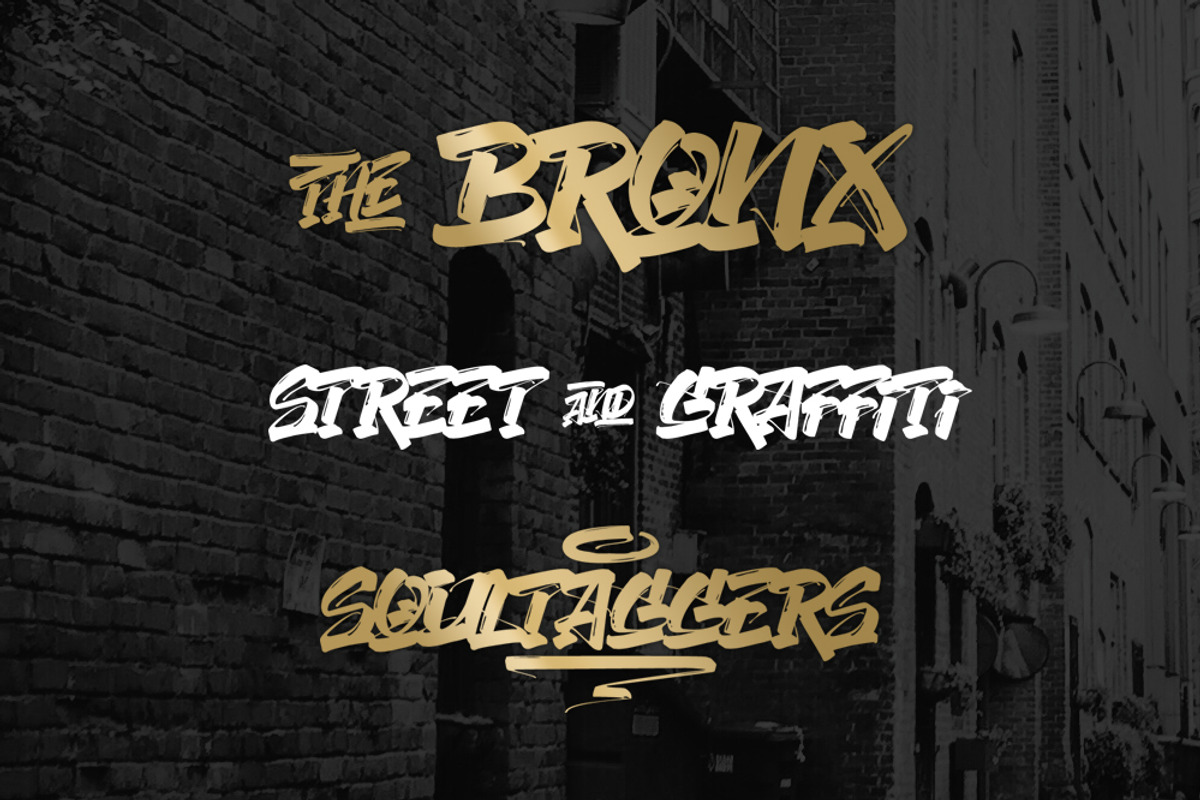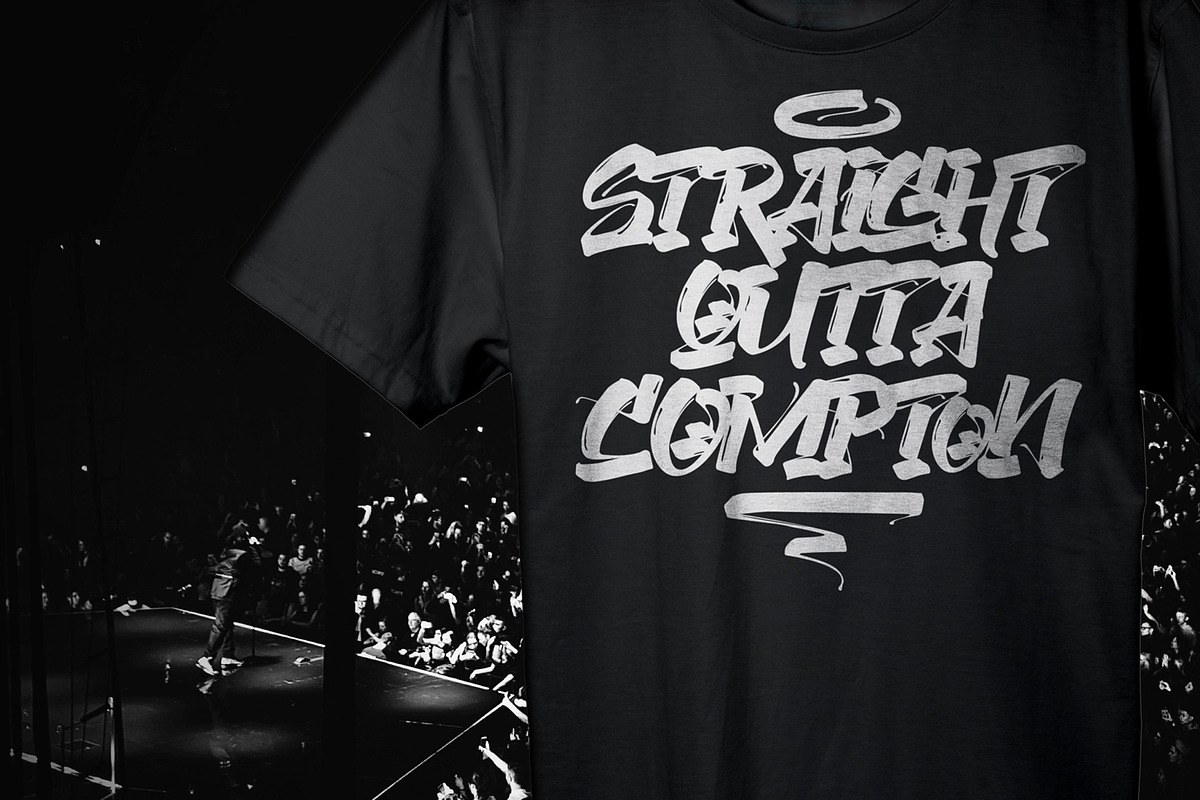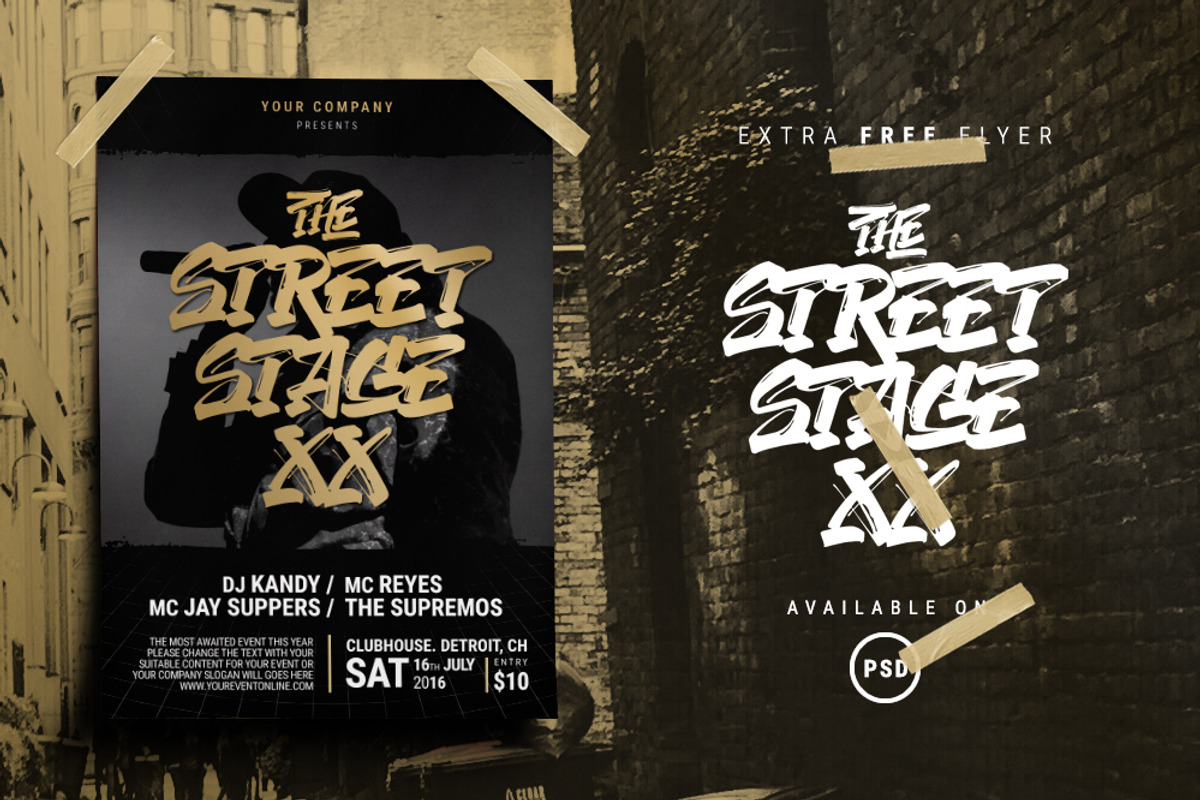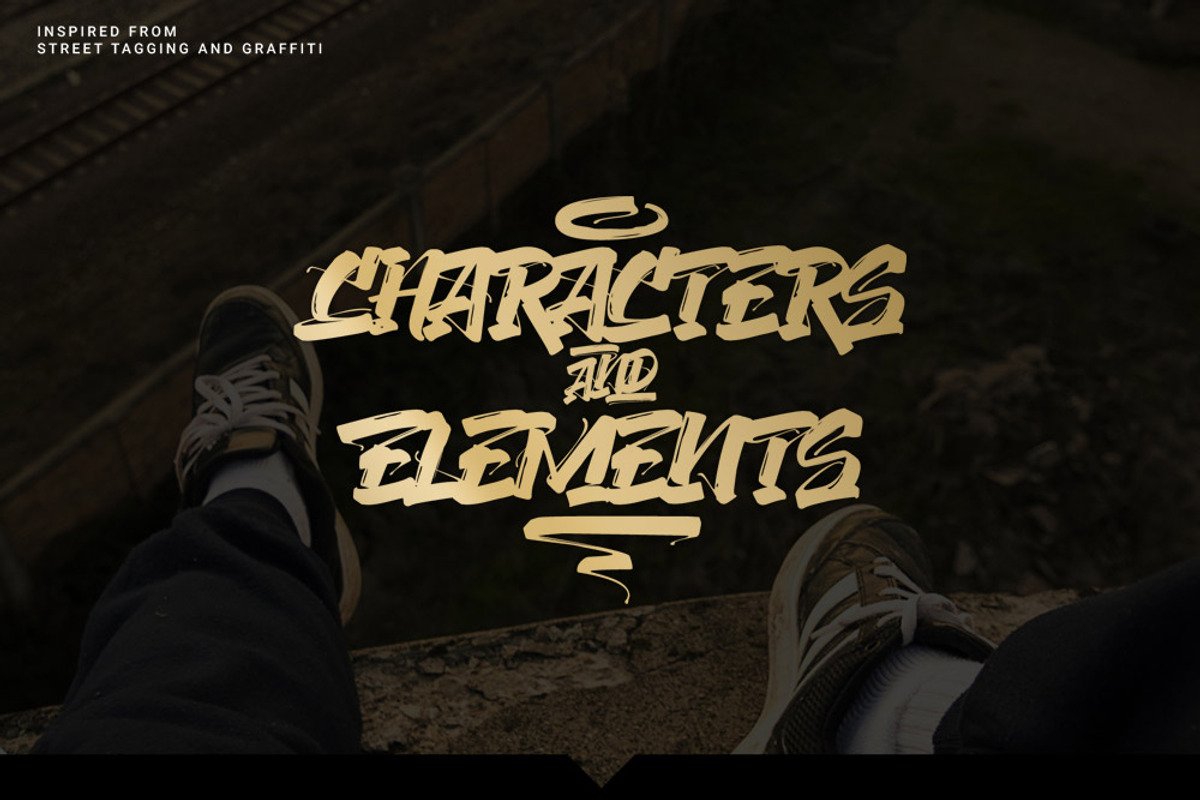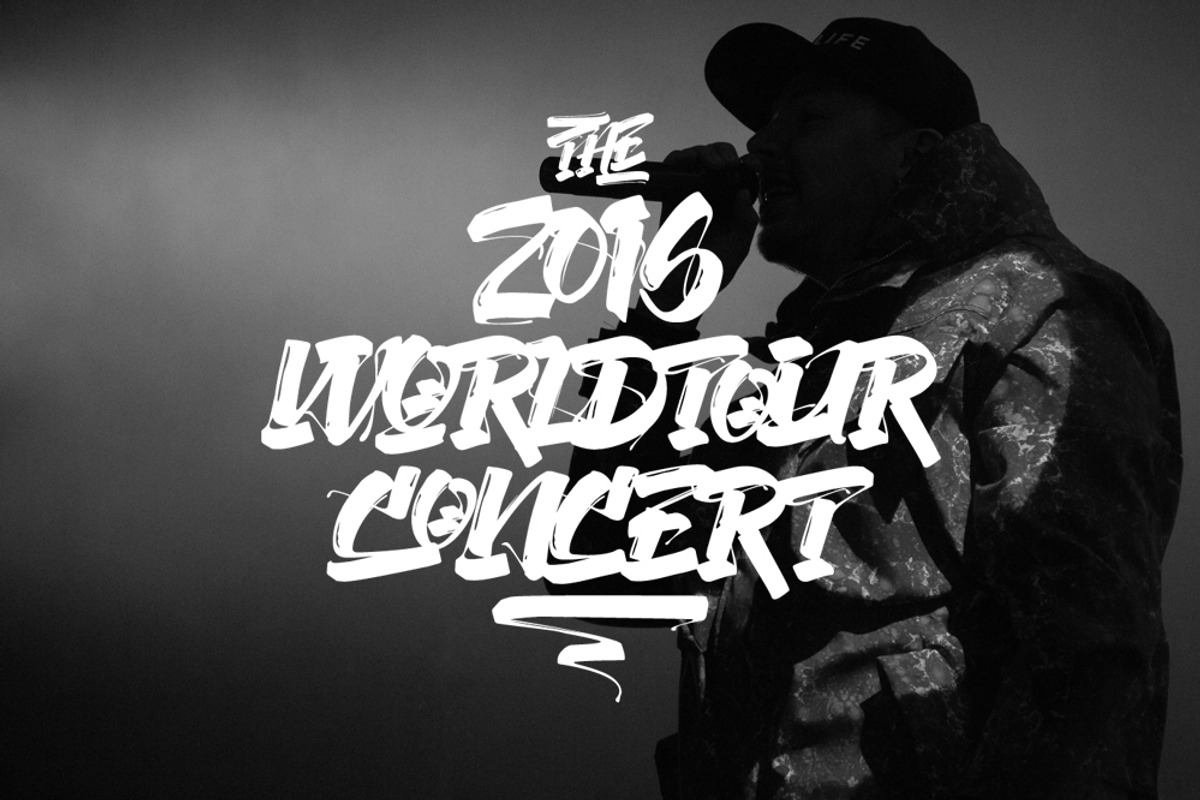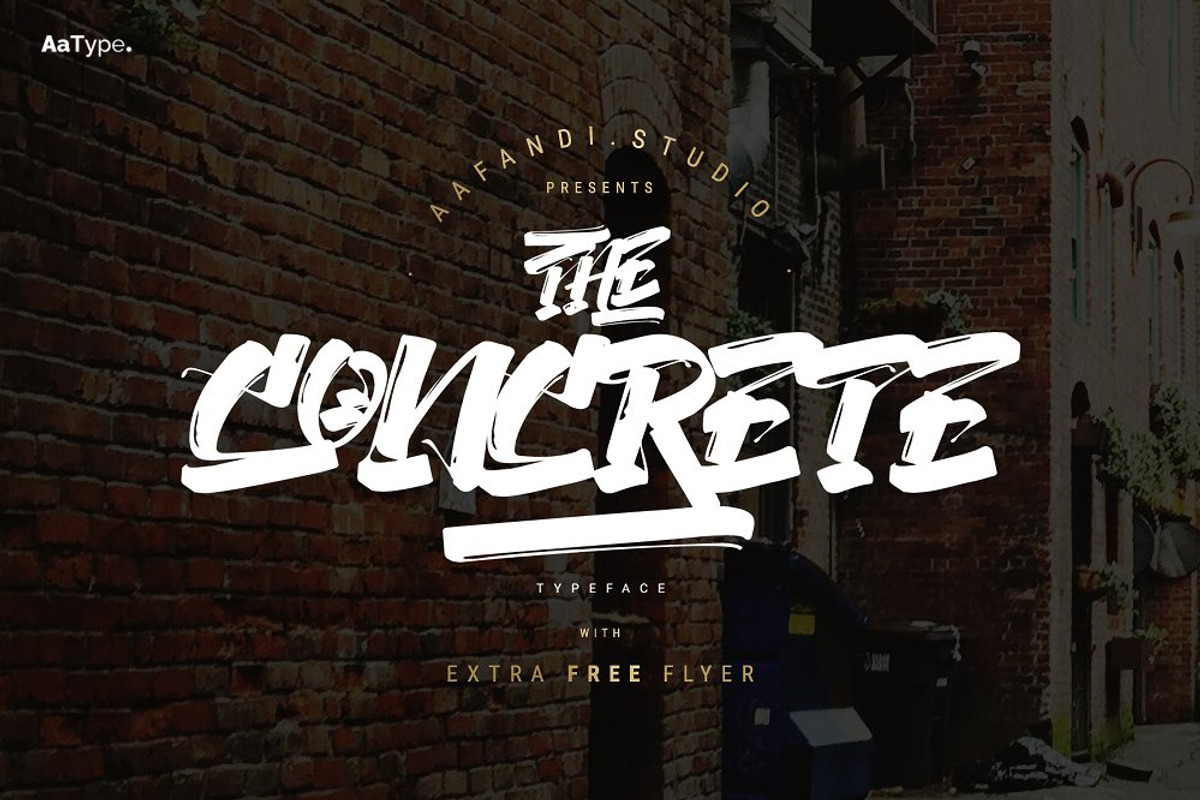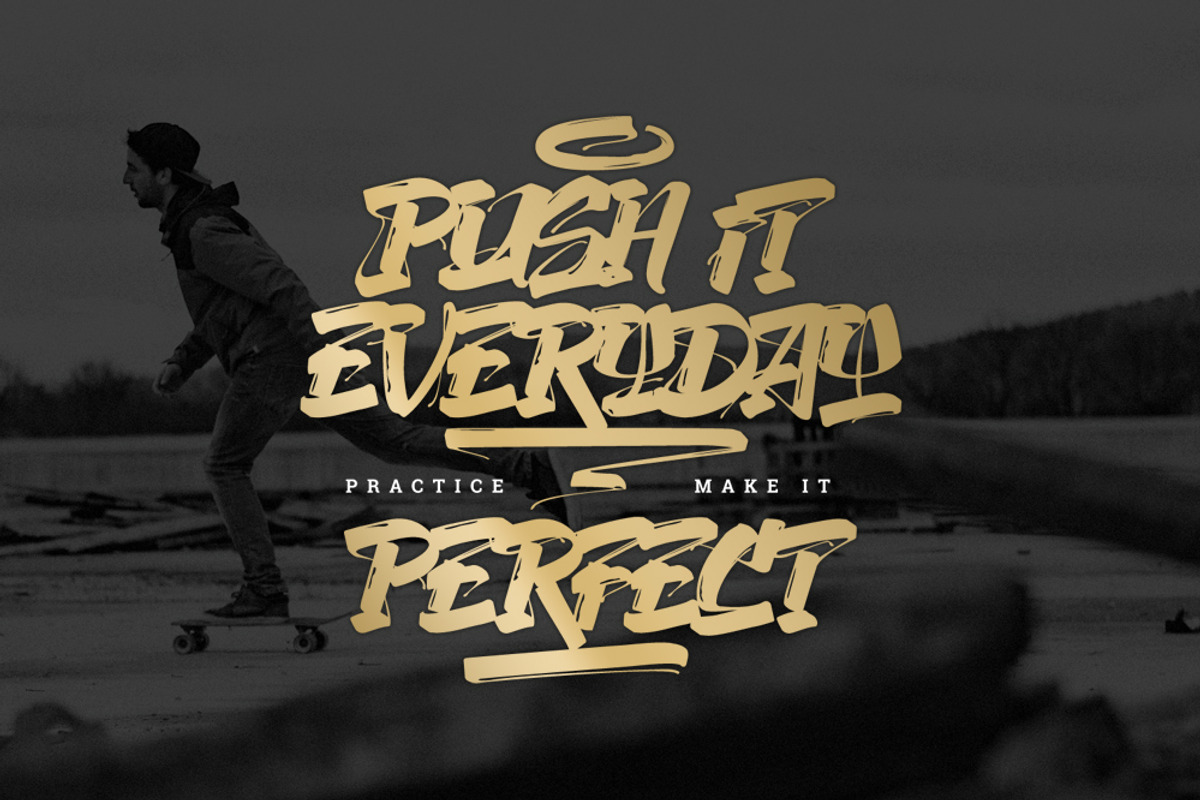
The Concrete Graffiti Font
The Concrete is a high-resolution street tagging & graffiti's inspired typeface, develop with hand-style tagging and build with lot of features.
The Concrete Opentype features including more than 130 glyphs : All Caps Uppercase & Lowercase, Numerals, Punctuation, Ligatures, Alternates Stylistic, Swash & Elements.
The Concrete typeface is good for Poster, Flyer, Titles (for Music, Movie, Biography, etc) Apparel, and Logotype.